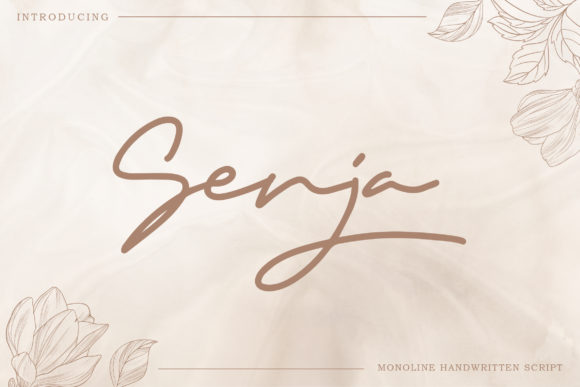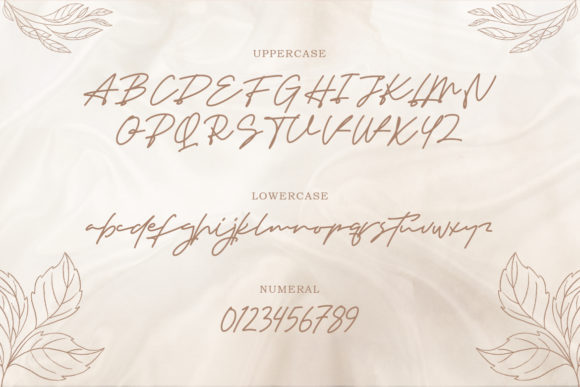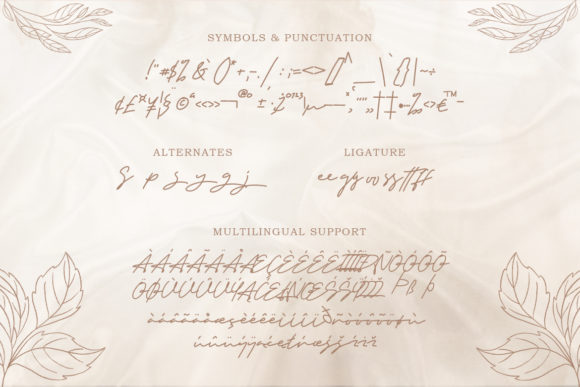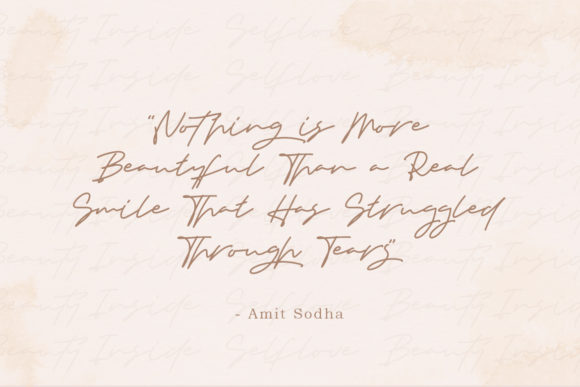
About Senja Font
Senja is an authentic script font that combines elegance with a touch of playfulness. Its flowing and expressive letterforms make it a versatile choice for a wide range of design projects.
With its authentic and handcrafted look, Senja adds a touch of uniqueness and charm to your designs. Whether you’re creating letterheads, titles, stationery, or any other crafty project, this font will bring a sense of personality and creativity.
The versatility of Senja allows you to explore various design ideas and applications. Its graceful curves and well-balanced characters make it suitable for both formal and casual designs. Use it to create elegant wedding invitations, eye-catching logos, stylish branding materials, or even personalized stationery.
The organic and natural feel of Senja makes it a great choice for designs that aim to evoke a sense of authenticity and warmth. Its handwritten appearance adds a personal touch, making your projects feel more intimate and engaging.
Whether you’re designing for print or digital media, Senja adapts seamlessly to different contexts. Its legible and well-designed letterforms ensure readability, even at smaller sizes. It is a font that captures attention and creates a lasting impression.
In summary, Senja is an authentic script font that offers versatility and charm. Its handcrafted style and graceful letterforms make it suitable for a wide range of crafty ideas, from letterheads and titles to stationery. Get creative with Senja and bring your designs to life with its unique and expressive personality.